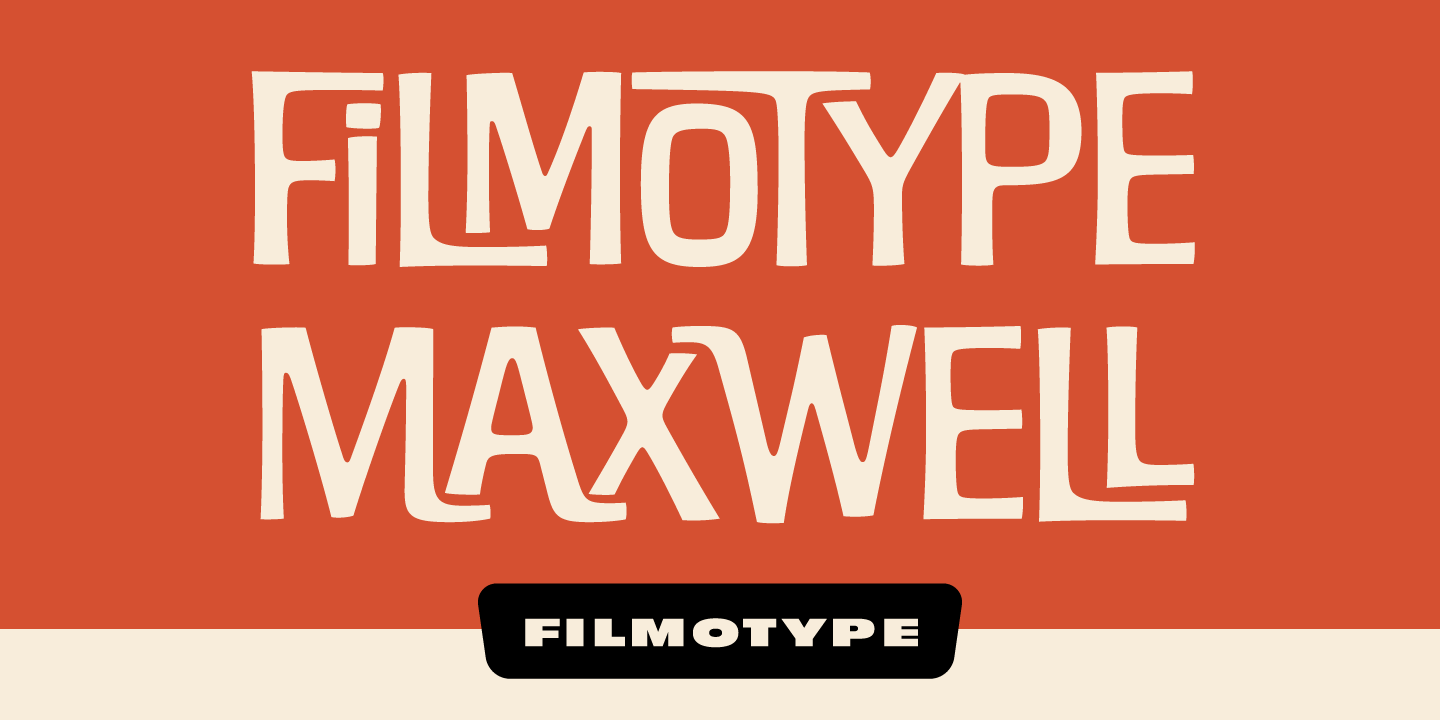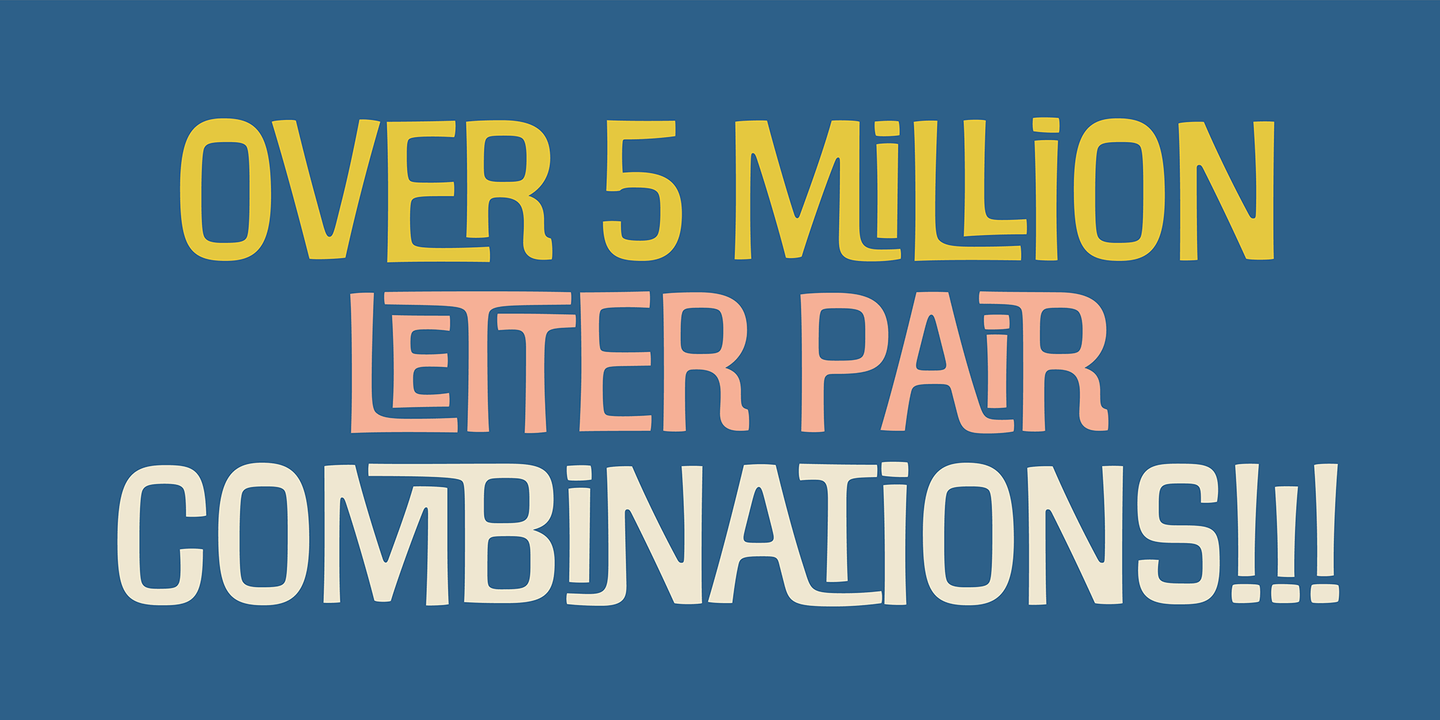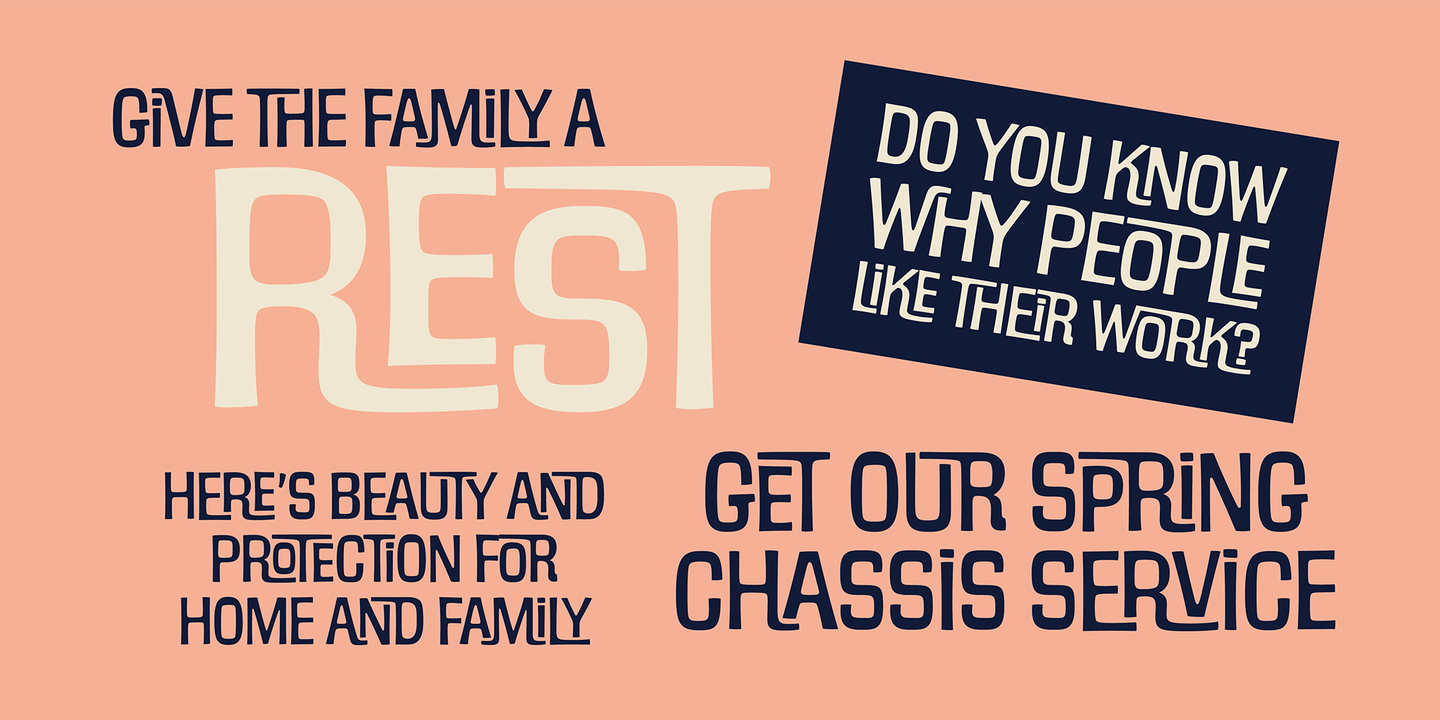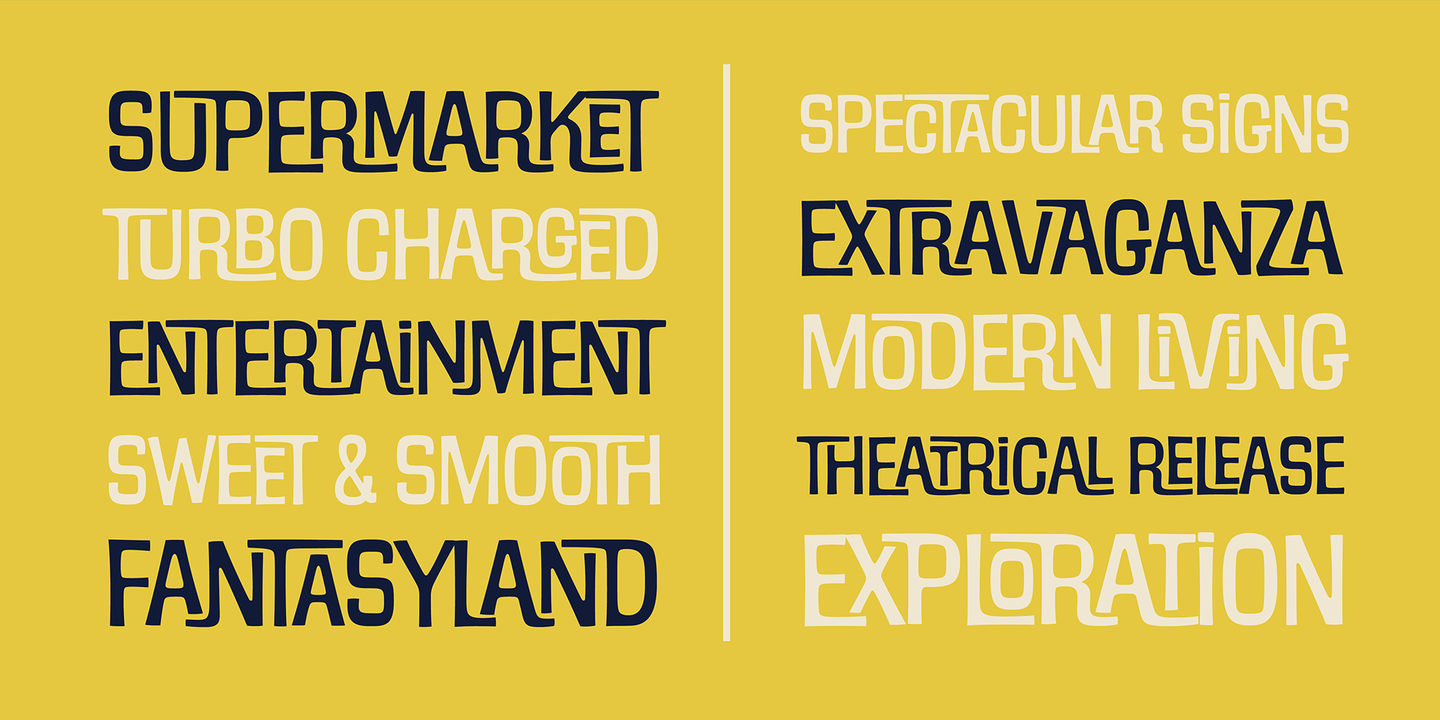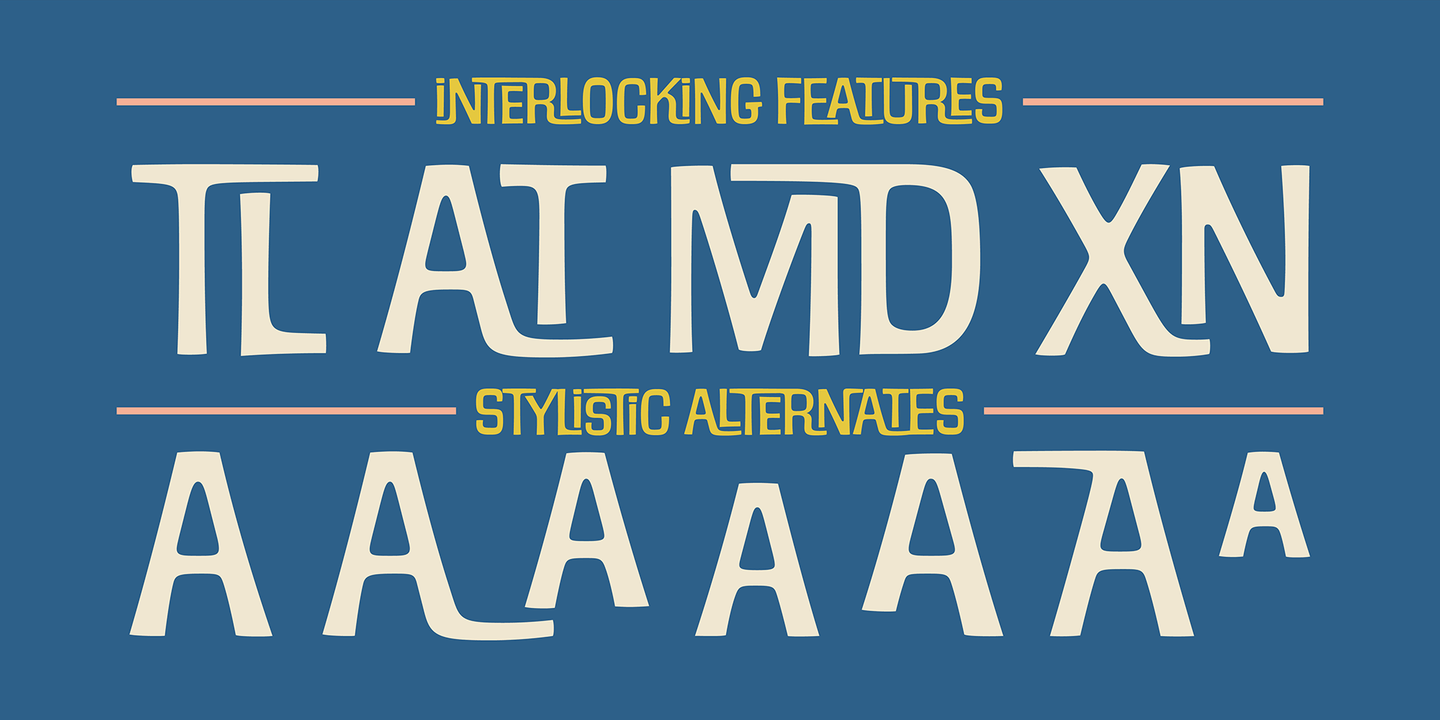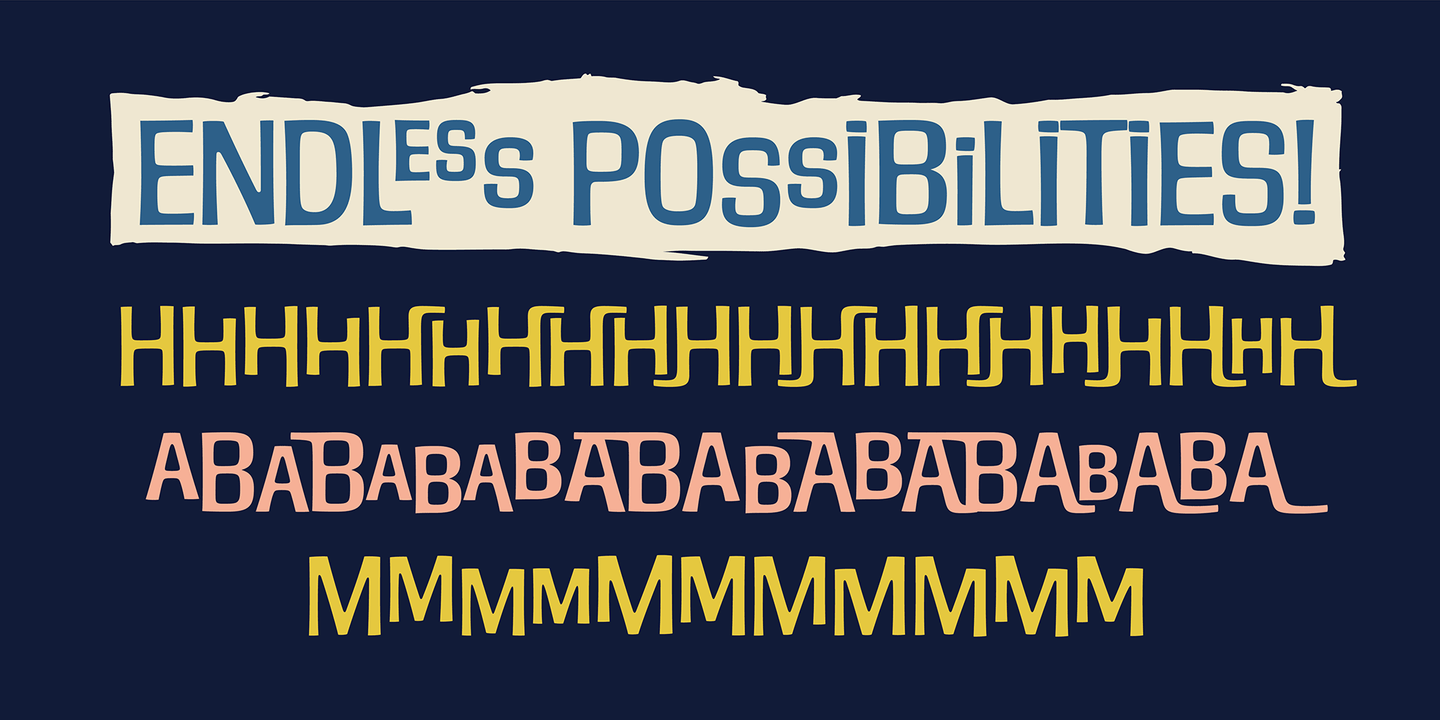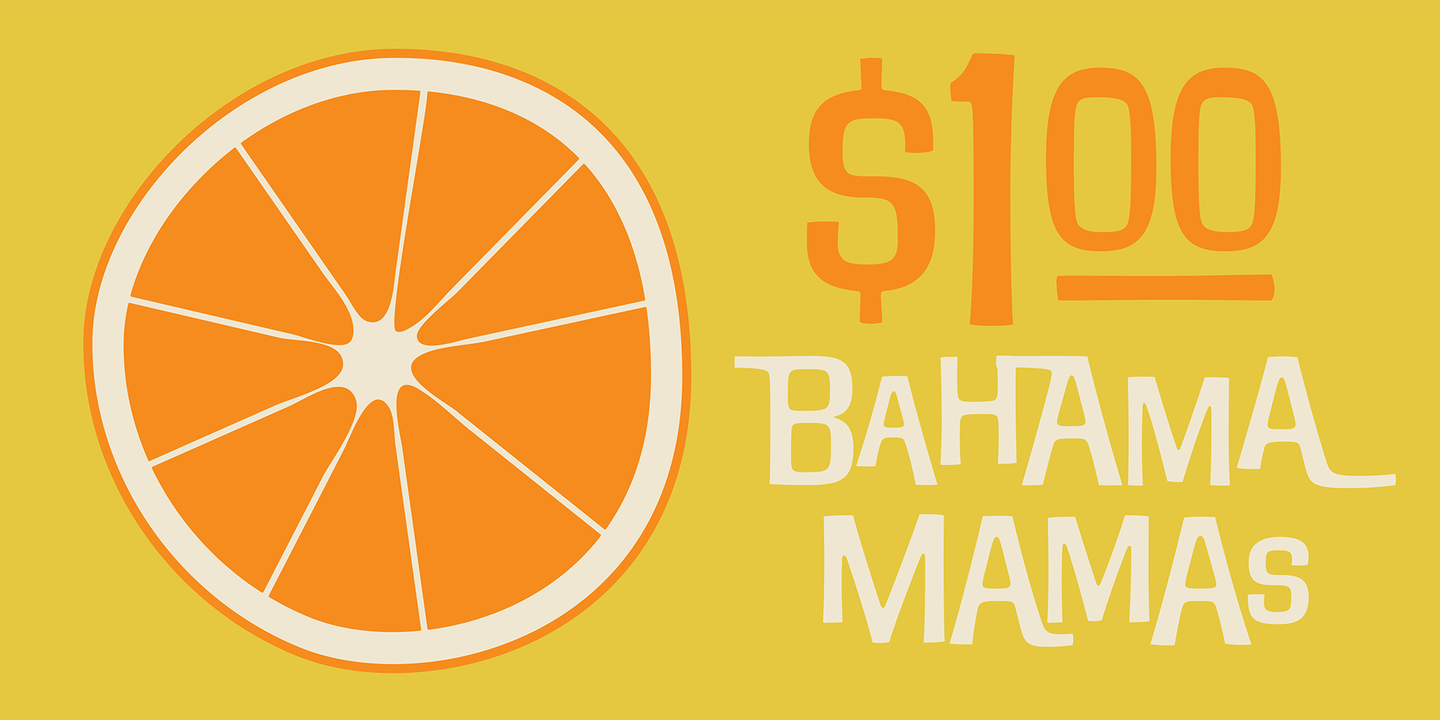
Filmotype Maxwell
It's Filmotype Maxwell! a bouncy interlocking serif originally released as a Free Style typeface by Filmotype in the early 1960s that captures the essence of the mod design movement.
This amazing font has over 5 million automatic interlocking letter combinations to create its very own typesetting system.
Filmotype Maxwell was developed from the original font filmstrips and includes a full international character compliment, automatic ligature combinations, ordinals, fractionals, and a host of alternate characters in dynamic OpenType format.